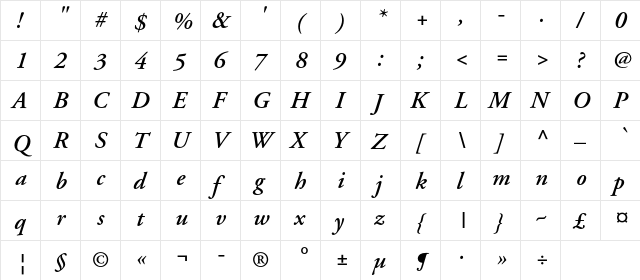
APCGaramond-SemiBoldItalic Regular Font Preview
Design Context for APCGaramond-SemiBoldItalic Typeface
APCGaramond-SemiBoldItalic offers clean, dependable letterforms without strong stylistic allegiance, making it a practical choice for designers who need flexibility. The slanted form adds forward momentum and visual energy. The heavy weight commands attention and anchors typographic hierarchies.
Pro Tip: Try APCGaramond-SemiBoldItalic for annotation and caption copy alongside an upright companion — the contrast in angle creates a dynamic but ordered typographic system.